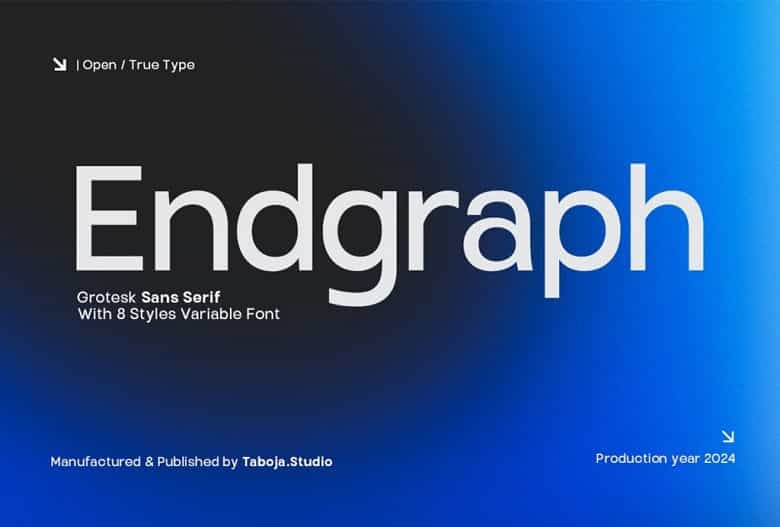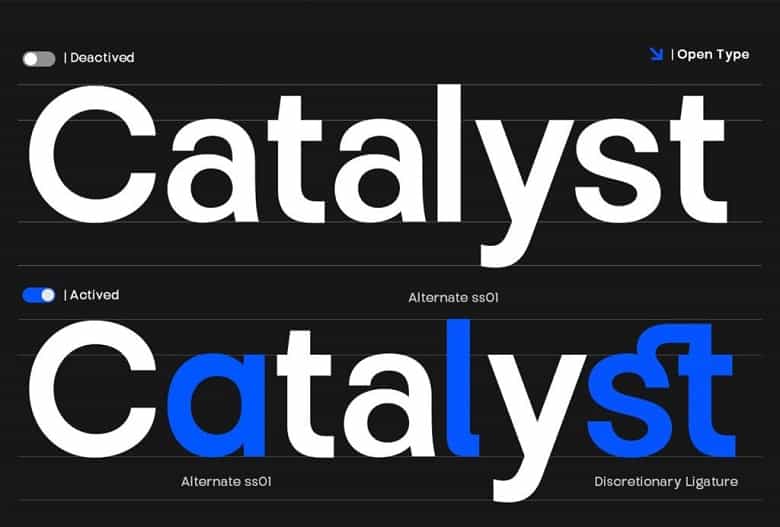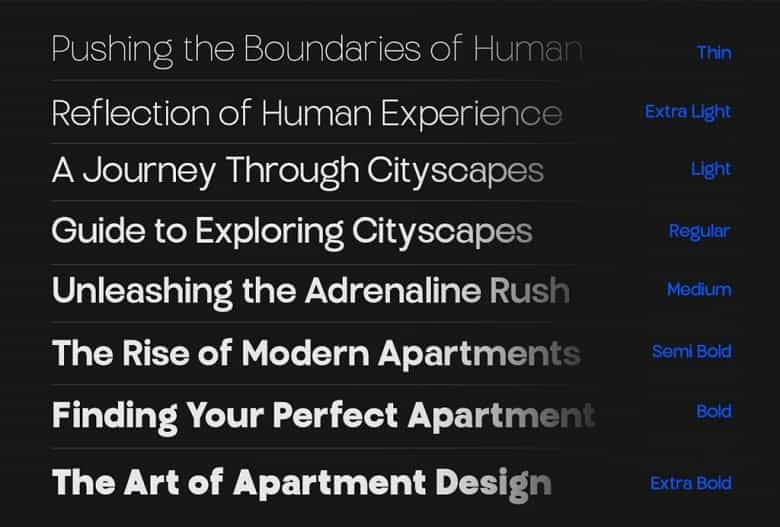
TBJ Endgraph is a modern sans serif font family that unites geometric approach with the warmth of grotesk style. Having 8 different weights from Thin to Extra Bold, TBJ Endgraph will look appropriate in any project ranging from logos, web-sites, and printed materials. Due to its rather simple design and symmetrical shapes, it is a rather timeless option for designers who value aesthetics as well as clear legibility.